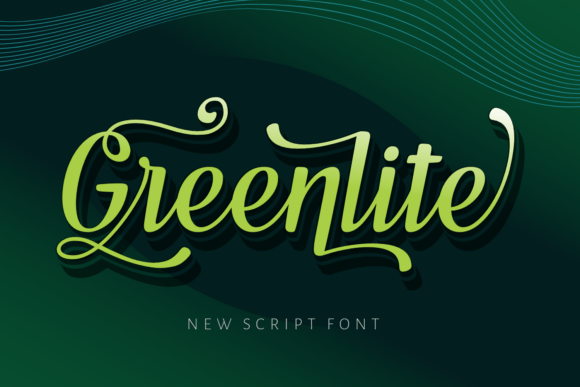
Introducing Greenlite Font: Elevate Your Design with a Bold and Elegant Script
In the world of typography, a font can make or break a design. When it comes to creating a lasting impression, the right font choice is crucial. For those seeking a bold and elegant script font that embodies a vibrant, organic essence, look no further than Greenlite. This stunning font is designed to add depth and dimension to any design, making it perfect for high-impact logos, branding, signage, and packaging.
Key Features of Greenlite Font
- Dynamic Swashes: Greenlite boasts dynamic swashes that add a touch of elegance and sophistication to any design.
- Graceful Curves: The font’s graceful curves create a sense of fluidity and harmony, making it perfect for designs that require a natural flair.
- Layered 3D Shadows: Greenlite’s layered 3D shadows add depth and dimension to the font, creating a truly eye-catching effect.
Ideal Design Applications for Greenlite Font
Greenlite is a versatile font that can be used in a variety of design applications. Its sophisticated yet playful letterforms make it ideal for:
- Eco-Friendly Brands: Greenlite’s organic essence and natural flair make it a perfect fit for eco-friendly brands looking to convey a sense of sustainability.
- Wellness Products: The font’s elegant and sophisticated design makes it suitable for wellness products, such as yoga studios, health food stores, and spa centers.
- High-Impact Logos: Greenlite’s bold and dynamic design makes it perfect for high-impact logos that require a touch of elegance and sophistication.
- Branding and Signage: The font’s versatility and legibility make it suitable for branding and signage applications, such as billboards, posters, and business cards.
- Packaging Design: Greenlite’s unique design and layered 3D shadows make it perfect for packaging design, adding an extra layer of depth and dimension to product packaging.
Typography Tips for Using Greenlite Font
To get the most out of Greenlite, here are some typography tips to keep in mind:
- Pair with Simple Fonts: Pair Greenlite with simple, clean fonts to create a harmonious contrast and add visual interest to your design.
- Experiment with Colors: Greenlite’s dynamic design makes it perfect for experimenting with different colors and gradients. Try pairing the font with earthy tones or bold brights to create a unique effect.
- Play with Swashes: Greenlite’s dynamic swashes can add a touch of elegance and sophistication to your design. Experiment with different swash styles to find the perfect fit for your project.
The Benefits of Using Greenlite Font
So why choose Greenlite font for your design project? Here are just a few benefits of using this stunning script font:
- Unique Design: Greenlite’s dynamic swashes, graceful curves, and layered 3D shadows create a truly unique design that sets it apart from other fonts.
- Versatility: Greenlite is a versatile font that can be used in a variety of design applications, from high-impact logos to packaging design.
- Elegance and Sophistication: Greenlite’s elegant and sophisticated design makes it perfect for designs that require a touch of luxury and refinement.
In conclusion, Greenlite font is a bold and elegant script font that captures a vibrant, organic essence. With its dynamic swashes, graceful curves, and layered 3D shadows, Greenlite adds depth and dimension to any design. Whether you’re looking to create a high-impact logo, branding, signage, or packaging, Greenlite is the perfect choice. Its sophisticated yet playful letterforms make it ideal for eco-friendly brands, wellness products, and any project looking for a harmonious blend of boldness and elegance.